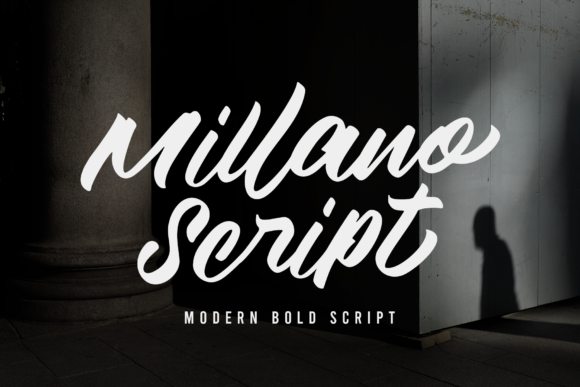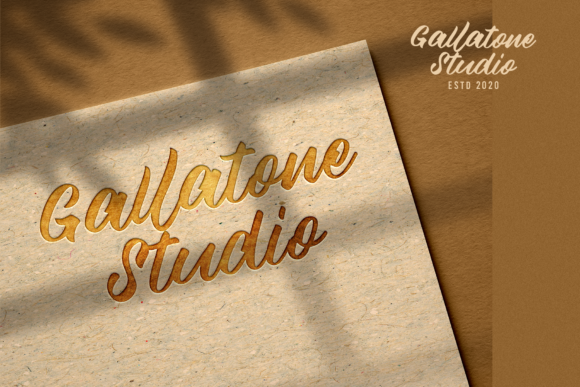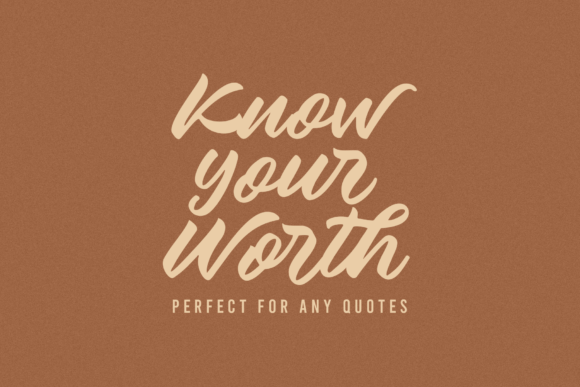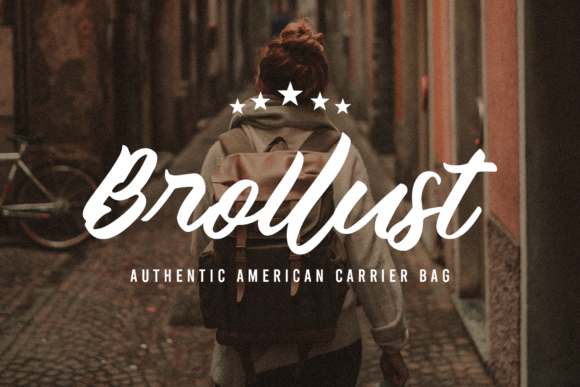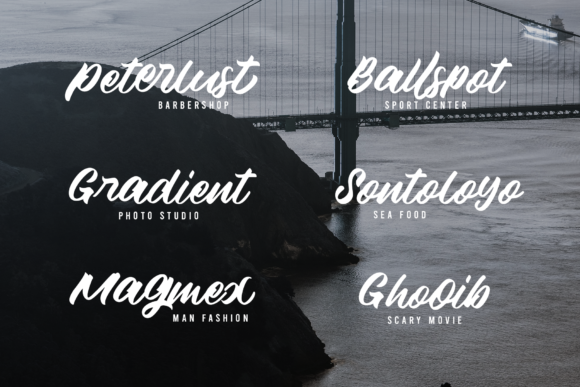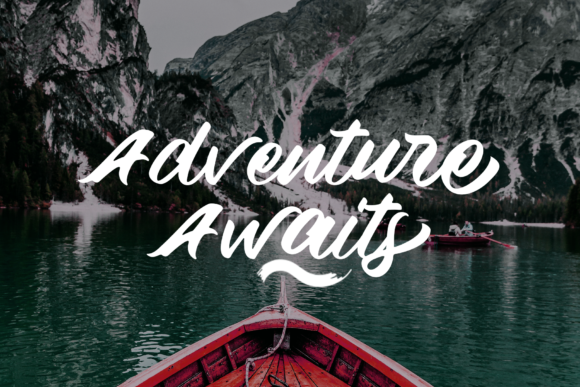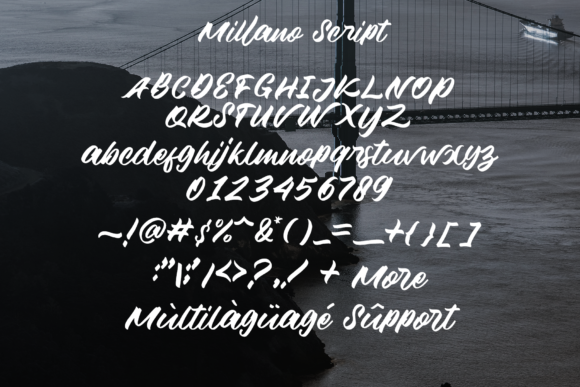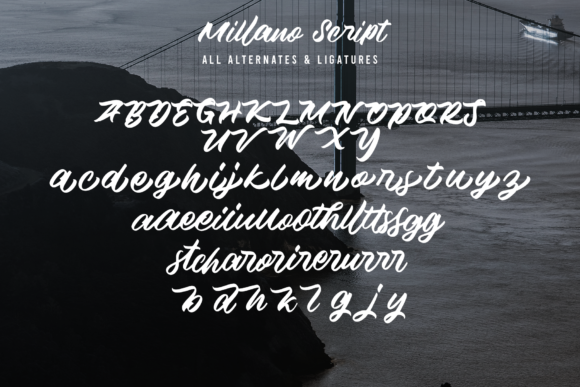
Millano Script Font
About Millano Script Font
Millano Script is a beautiful, distinct and flowing handwritten font. Remarkable and bold, this font will turn each of your designs into a true piece of art!